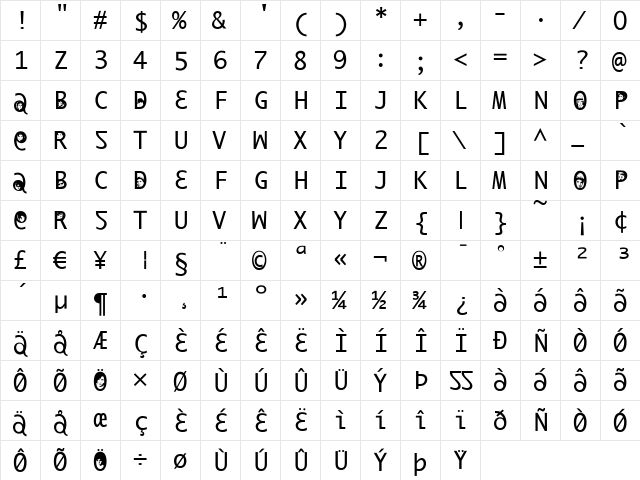
ILikeOffenbachXtra Regular
Design Context for ILikeOffenbachXtra Typeface
ILikeOffenbachXtra is a composed and adaptable typeface that performs quietly and consistently across a wide range of design contexts.